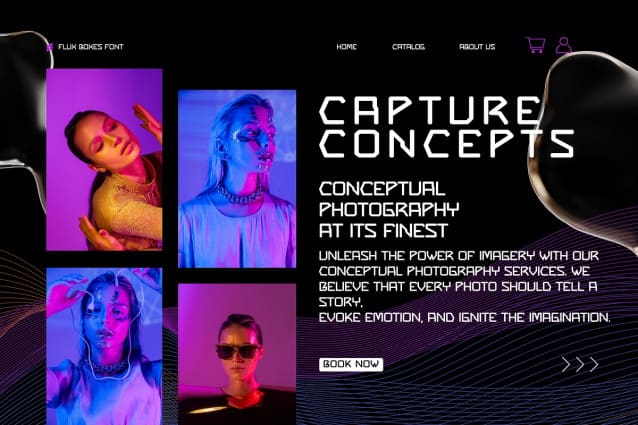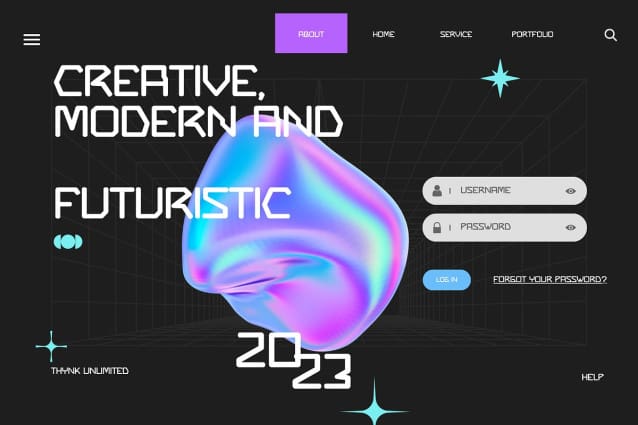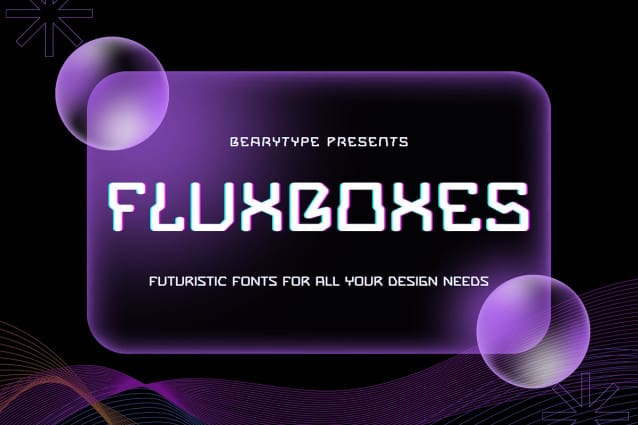
Fluxboxes Futuristic Font
Fluxboxes Futuristic Font is a futuristic font designed to bring a modern and sophisticated look to any design project. With its clean lines and innovative shapes, Fluxboxes transforms ordinary designs into extraordinary ones. Ideal for various applications ranging from branding and posters to user interfaces, this font adds an elegant and futuristic touch that will captivate attention and enhance visual appeal. Choose FluxBoxes to elevate your designs to the next level with style and precision